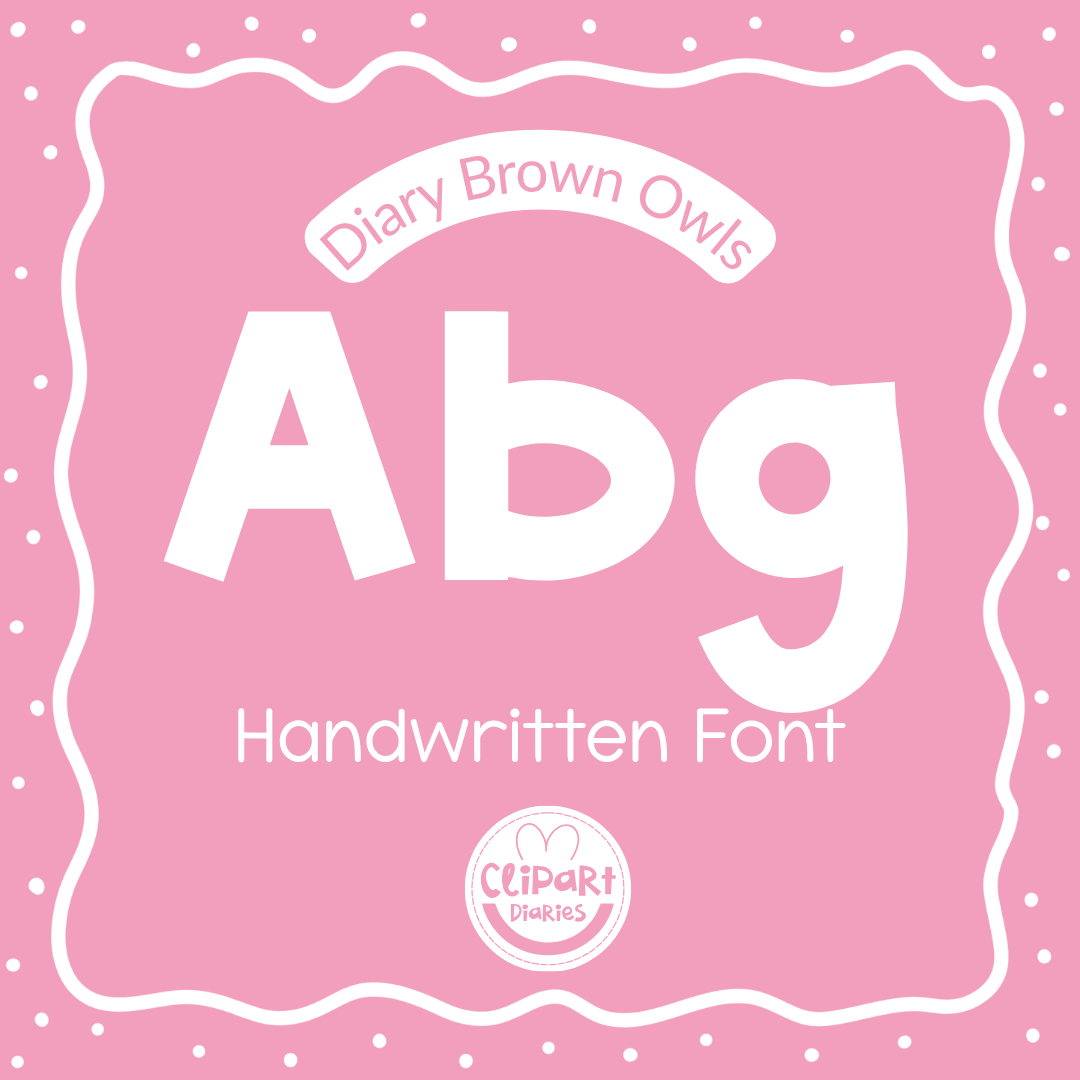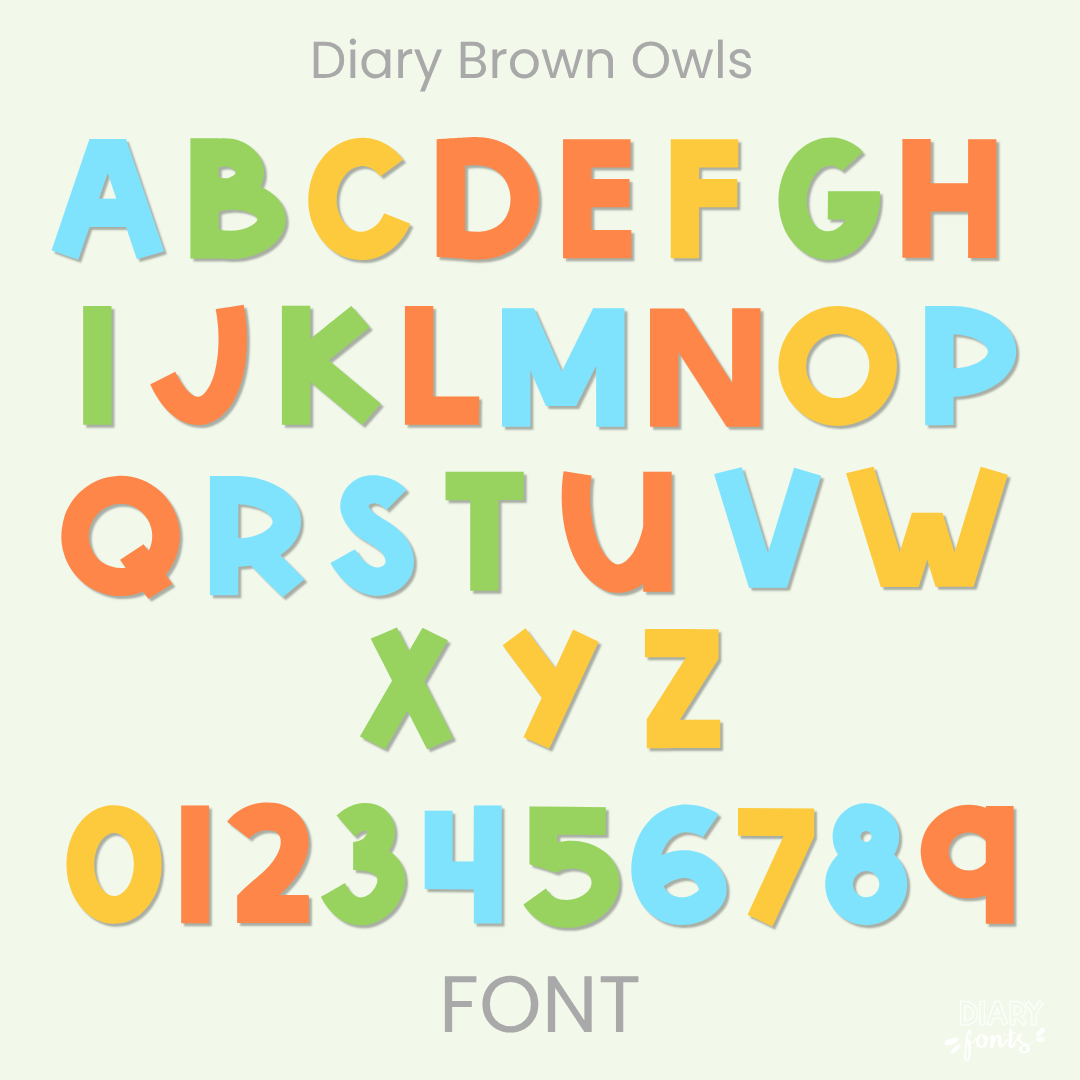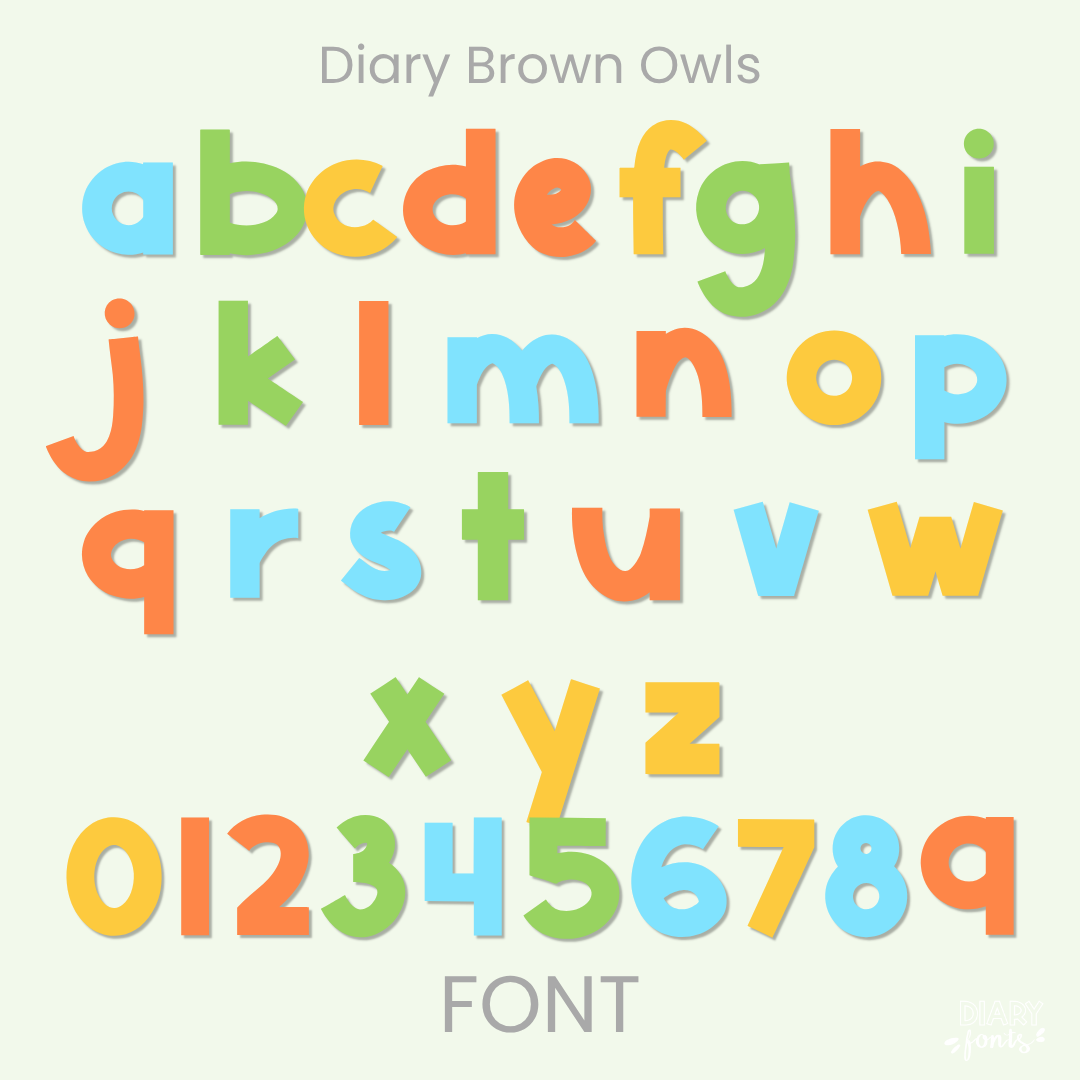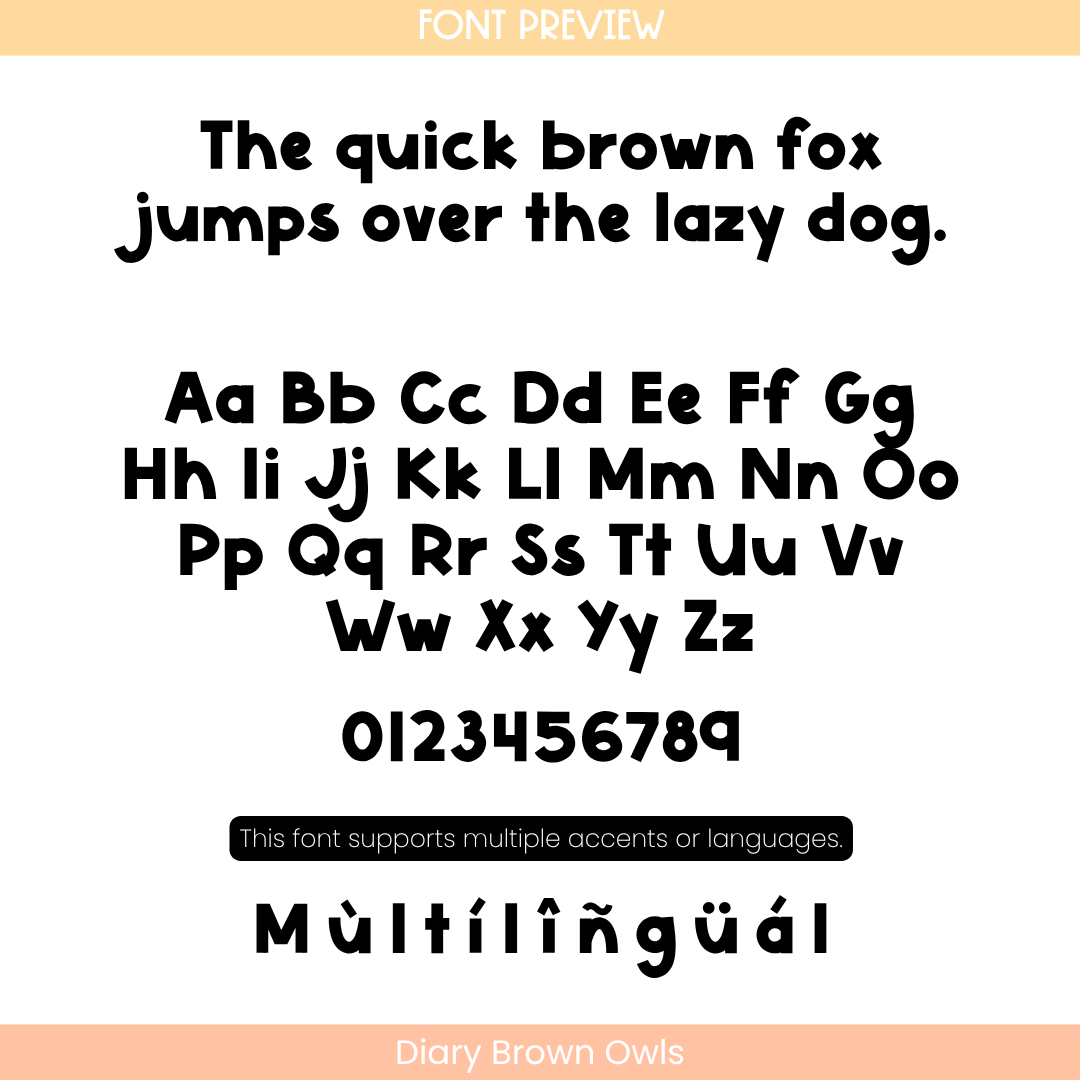
The Diary Brown Owls is a clean, tall handwritten font with a steady marker style stroke. It is perfect for making your digital resources and classroom materials easy to read.
If you need a font that is neat but still looks like actual handwriting, Diary Brown Owls is a great pick. It features tall, slightly condensed letters with clean lines and sharp corners. This gives it a “written with a fine-tip marker” look rather than a typical rounded style. It is incredibly legible, making it ideal for everything from detailed worksheets and reading passages to classroom labels and task cards. The font includes a full set of uppercase and lowercase letters, numbers, and all the accents you need for multiple languages. It is ready to go in Canva, MS Office, and Adobe Apps, and it works perfectly on the iPad with GoodNotes and Procreate. Whether for personal use or commercial products, this font keeps your designs looking polished and professional.